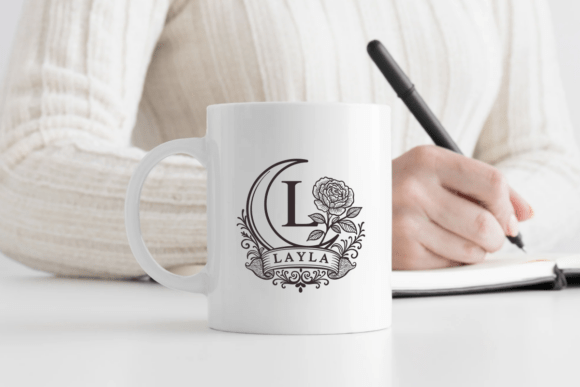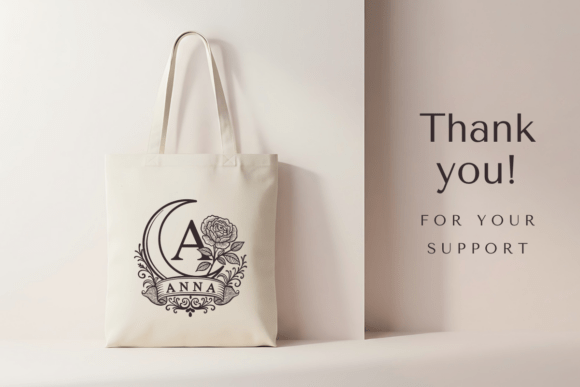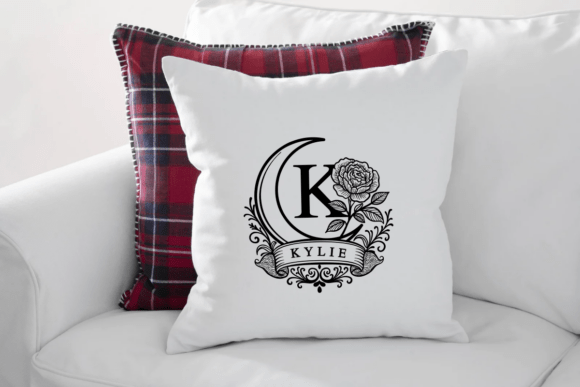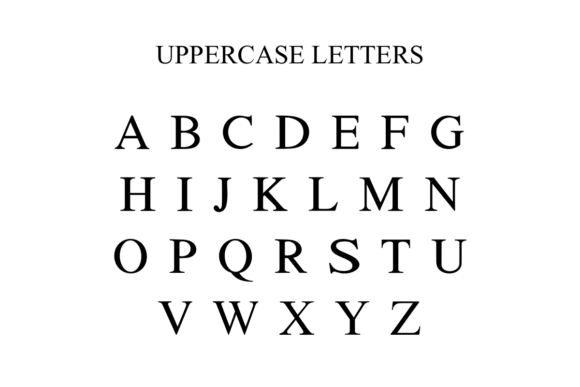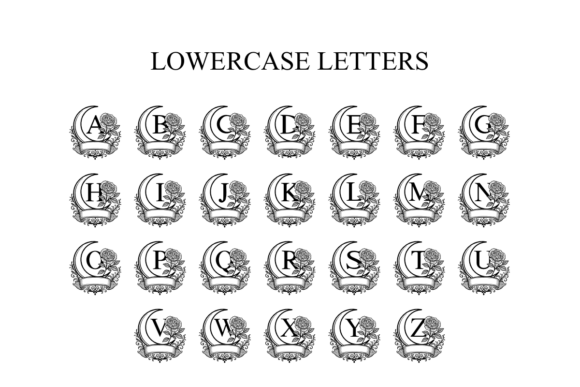
Introduction to Rose and Moon Font
Rose and Moon is a decorative font.
You can use it for taking notes, writing a diary, or making greeting cards However, you can still use it for other designs, such as banners, content, mugs, cards, shirts, stationery, social media posts, and more.
Key Features of Rose and Moon Font
Why Choose Rose and Moon Font?